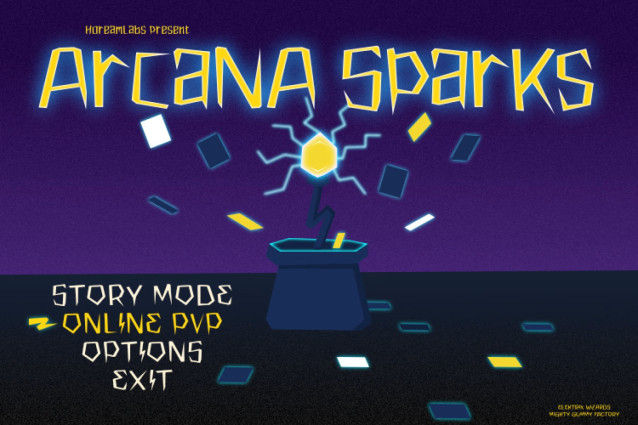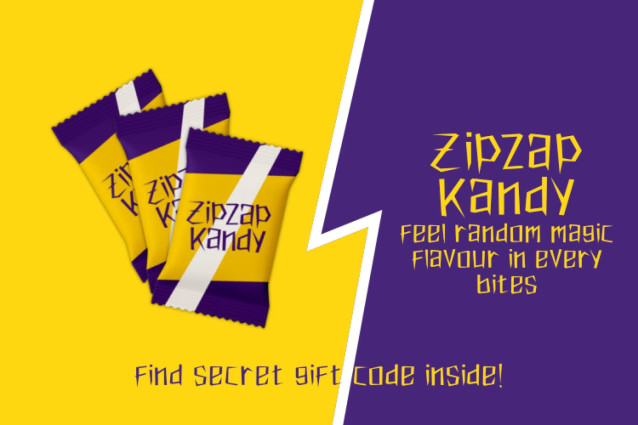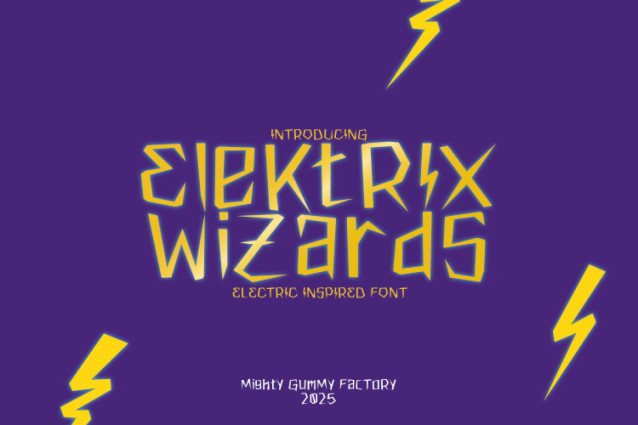
MGF Elektrix Wizards Font
MGF Elektrix Wizards Font is a chunky, comic, and cartoon display font. With its neat and joyful personality, this font will enhance any project you wish to create!